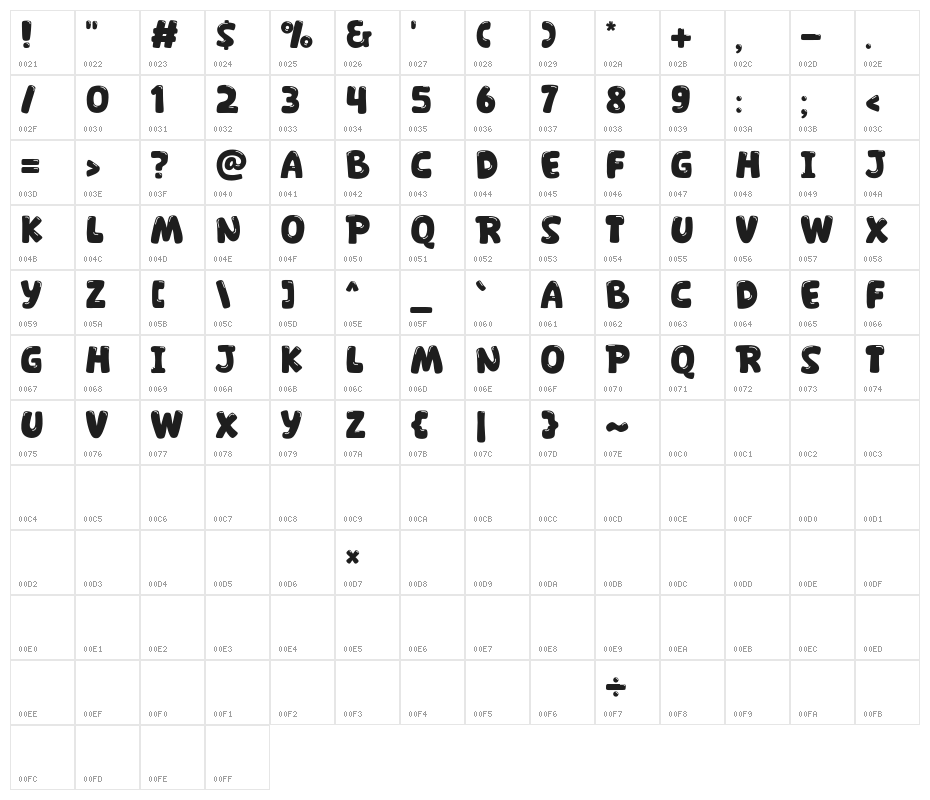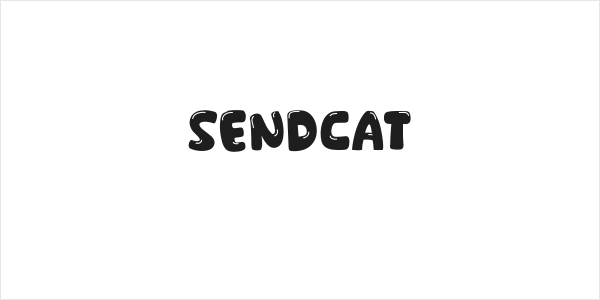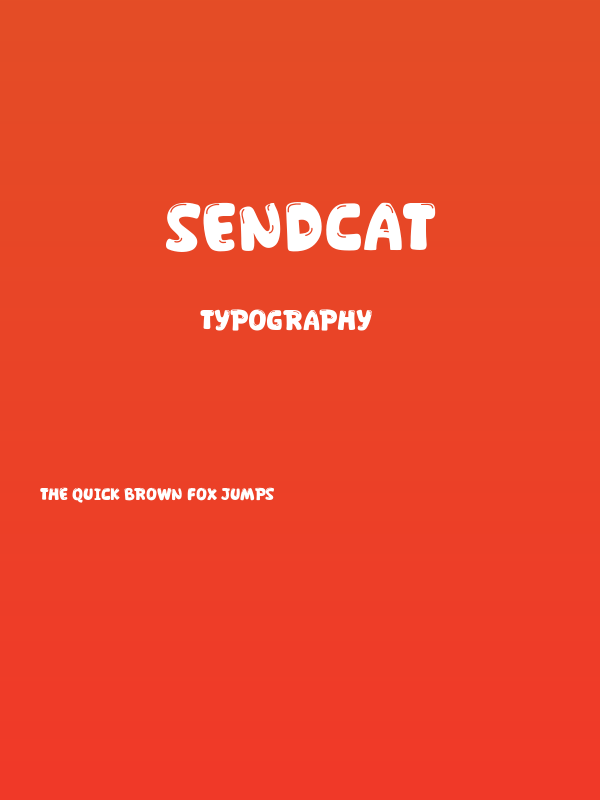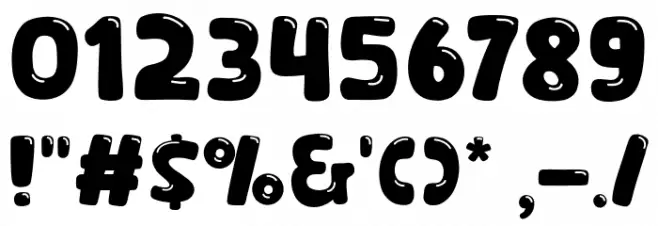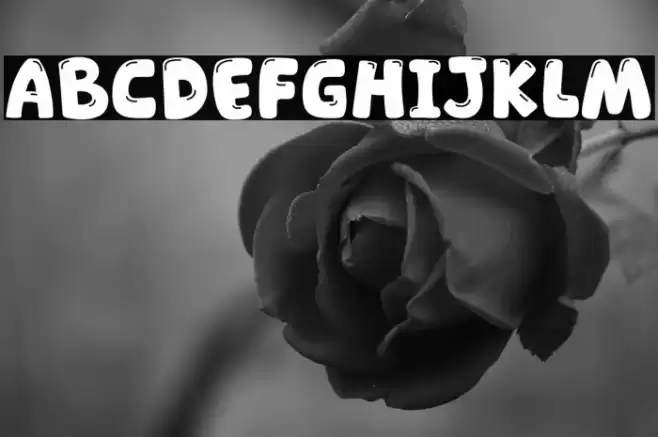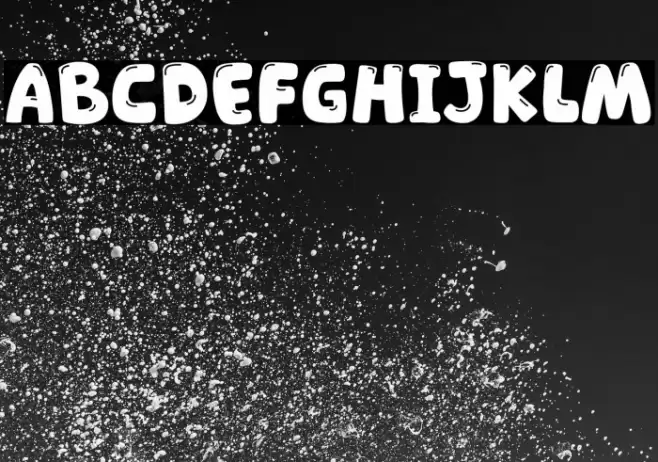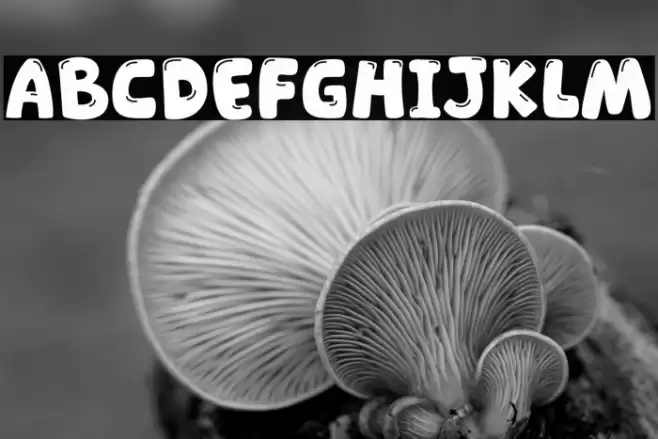
Sendcat Font
Sendcat Description
This font features a bold and playful style with rounded edges and a slightly irregular form, giving it a whimsical and friendly appearance. The characters are thick and substantial, making them highly visible and impactful. The uppercase and lowercase letters maintain a consistent weight, while the numbers and special characters follow the same design principles, ensuring uniformity across all glyphs. The font's bubbly nature makes it suitable for projects that require a fun and approachable aesthetic.
| Proposed Projects | Ideal for children's books, playful branding, party invitations, and casual posters. |